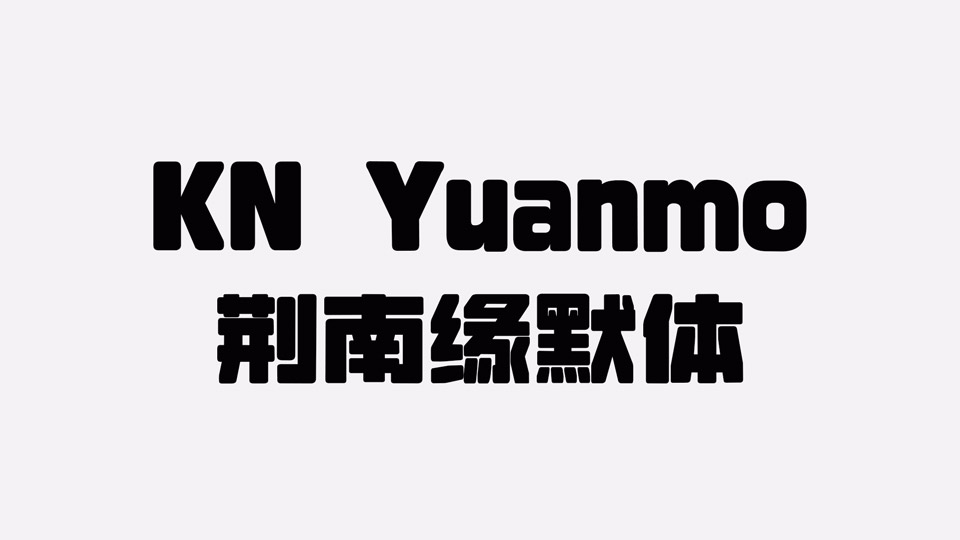
Download KN Yuanmo font, a super bold cutey round typeface for Simplified Chinese. KN Yuanmo font is very suitable for store advertisements, real estate ads, subway bus station ad posters, various online and offline product promotions, cover title fonts, etc.
Designer: Kingnam Type Foundry